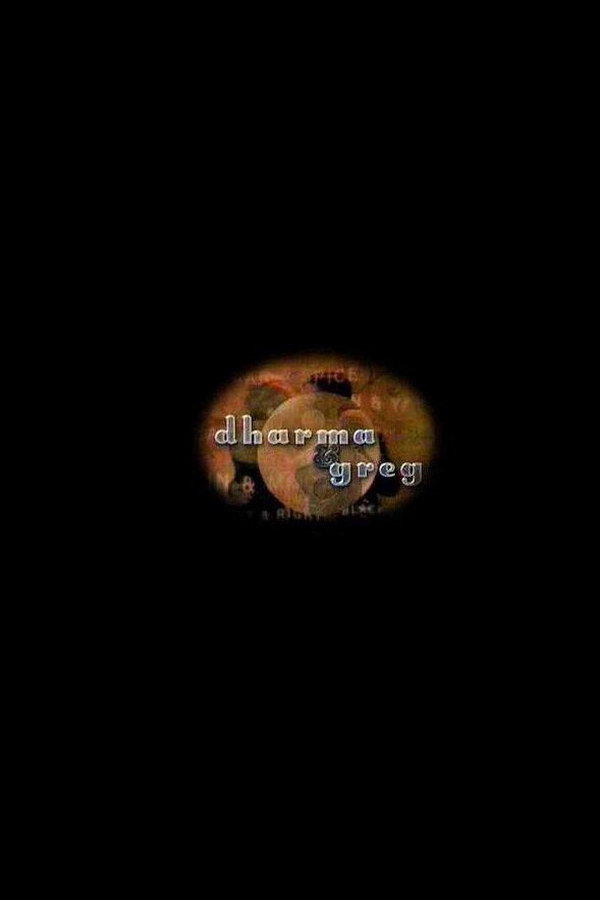
Dharma & Greg Font
Fonts in UseDharma & Greg is an American sitcom that aired from 1997 to 2002. The show revolves around the love story of two very different individuals, Dharma, a free-spirited yoga teacher, and Greg, a conservative lawyer.